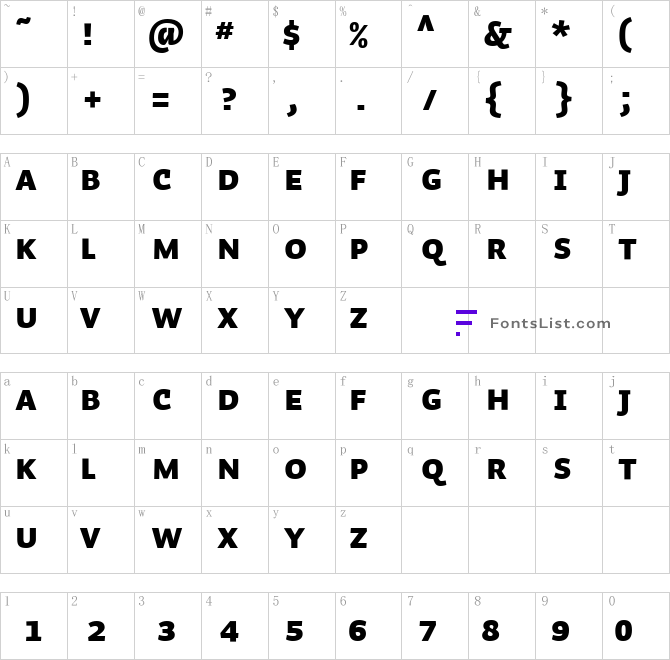
- Font Name:Auto 3 SmCp
- Subfamily:Underware: Auto 3 Black SmCp: 2004
- Full Name:Auto3-BlackSmCp
Auto3-BlackSmCp.ttf is a very beautiful artistic font, Auto3-BlackSmCp.ttf is widely used in the design and printing of various books and pictures,Auto3-BlackSmCp.ttf has a strong visual impact,Auto3-BlackSmCp.ttf is a commonly used font in newspapers, magazines and books, and is used in posters, e-commerce Poster design, store design, logo design, font design and other fields.Auto3-BlackSmCp.